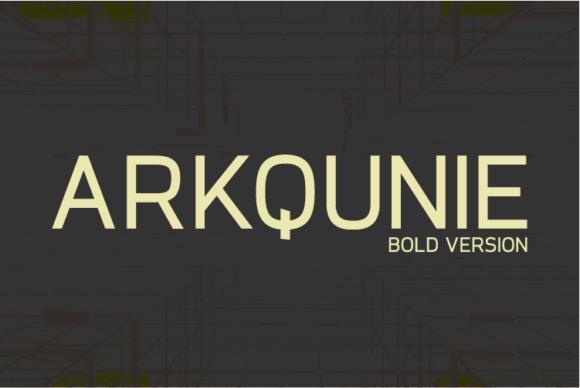
The Designer’s Delight: Uncovering the Versatility of Arkqunie Bold Font
I’ll never forget the time I was working on a project for a trendy boutique hotel, and I just couldn’t find the right font to capture their playful yet sophisticated vibe. The client wanted something modern, yet approachable, and I was on the verge of pulling my hair out. That’s when I stumbled upon Arkqunie Bold Font, and it was love at first sight! 💕
As a designer, I’ve always been on the lookout for fonts that can bring a touch of personality to my projects. And Arkqunie does just that. This casual and geometric sans serif typeface is perfect for headlines, postcards, business cards, logos, letterheads, magazines, posters, and so much more! 📚
What I Love About Arkqunie ✨
- ✅ Maximum flexibility: Arkqunie is perfect for a wide range of design projects, from digital to print.
- ✅ Unique character: The font’s geometric sans serif design gives it a distinctive look that’s hard to find elsewhere.
- ✅ Special features: Every corner of each letter has been carefully crafted to make Arkqunie stand out.
- ✅ Highly legible: Even at smaller sizes, Arkqunie remains clear and easy to read.
- ⚠️ Limited language support: While Arkqunie supports many languages, it may not be the best choice for projects requiring extensive language support.
- ⚠️ Not ideal for body text: While Arkqunie is highly legible, it’s best suited for headlines and titles rather than large blocks of body text.
The Story Behind Arkqunie
Arkqunie was designed with the goal of creating a versatile and modern sans serif font that could be used for a wide range of design projects. The designer’s inspiration came from the world of geometry and architecture, where clean lines and precise shapes reign supreme. The result is a font that’s both stylish and highly functional.
Q: What is the best way to use Arkqunie for branding and logos?
A: Arkqunie is perfect for branding and logos due to its unique character and high legibility. Use it as a standalone font or combine it with other fonts to create a custom look.
Q: Can I use Arkqunie for body text?
A: While Arkqunie is highly legible, it’s best suited for headlines and titles rather than large blocks of body text. Consider using a serif font for body text and reserving Arkqunie for headings.
Q: Is Arkqunie suitable for digital and print projects?
A: Yes, Arkqunie is designed to be versatile and can be used for both digital and print projects. Its high legibility and clean design make it perfect for a wide range of applications.